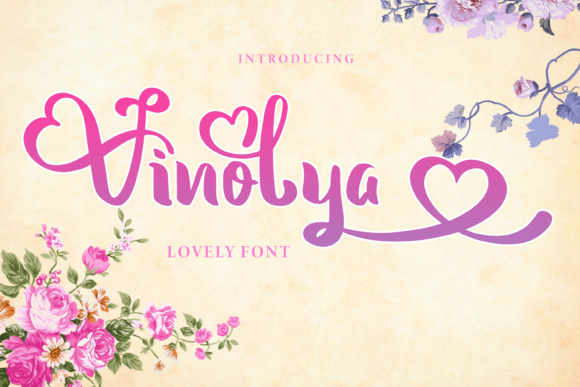
Introducing Vinolya Font: A Script Font That Infuses Charm into Your Creative Endeavors
In the vast digital landscape, where words dance across screens and pixels come alive, there exists a font that captures the essence of elegance and charm: Vinolya Font. This exquisite script font, crafted with meticulous attention to detail, will transform your creative projects into captivating works of art.
Vinolya's delicate curves and graceful lines evoke a sense of romance and joy, adding a touch of warmth and sweetness to your designs. It's the perfect font for creating heartfelt letters, enchanting invitations, whimsical logos, and captivating social media posts.
With Vinolya, your words will sing with a melody that resonates with your audience. Its playful nature invites you to explore endless variations, allowing you to express your unique style and personality. Whether you're a seasoned designer or just starting your creative journey, Vinolya will guide you towards exceptional results.
Picture this: a handwritten love letter penned with Vinolya's elegant strokes, carrying your heartfelt emotions with every curve and flourish. Or envision an invitation to a magical event, adorned with Vinolya's enchanting characters, promising an unforgettable experience.
Vinolya is more than just a font; it's a creative catalyst that unlocks your imagination and empowers you to weave captivating stories through the art of typography. Let your creativity flow freely as you explore the boundless possibilities that await you with Vinolya.